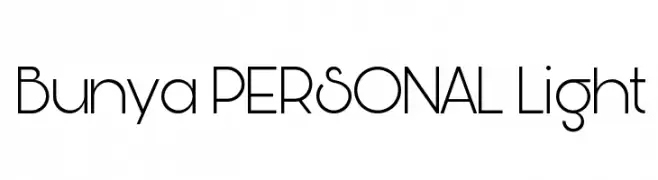
A bold, brush-style font with a hand-painted, textured appearance.
A bold, flowing script font with connected characters and dynamic style.
An elegant script font with fluid, interconnected strokes and graceful curves.
An ornate and decorative font with intricate swirls and flourishes.
A graceful and elegant script font with fluid, cursive strokes.
A festive, decorative font with cursive uppercase and bold script lowercase, perfect for holiday themes.
A festive script font with snowflake accents and holiday-themed symbols.
A sleek, italic serif font with medium weight and normal spacing.
A bold serif font with high contrast and modern elegance.
A bold, modern serif font with strong, angular serifs and consistent stroke widths.
A sleek, modern, and italicized font with a light weight and elegant style.
A modern, geometric font with elegant curves and balanced spacing.
A bold and italicized font with dynamic, slanted letterforms.
A bold, cursive font with a dynamic and elegant style.
A bold, cursive script font with a playful and energetic style.
A bold, playful handwritten font with fluid, brush-like strokes.
A bold, playful font with a cartoonish, bubble-like style.
A playful, bubble-like font with rounded, consistent outlines.
A bold, modern font with elongated, narrow characters and a uniform appearance.
A modern, condensed font with high contrast and elongated letterforms.
A modern, elongated font with sleek, narrow characters.
A bold, condensed font with tight spacing and a modern style.
An ultra-light, extra-expanded font with a sleek, modern design.
A modern, extra-expanded sans-serif font with a clean and bold appearance.
A bold, condensed, and italic font with a strong, modern style.
A thin, italicized font with a modern and elegant design.
A modern, clean sans-serif font with uniform strokes and excellent readability.
A modern, expanded, thin italic font with sleek, elongated letterforms.
An ultra-thin, extra-expanded font with a modern, geometric style.
( Måns Grebäck - www.mansgreback.com )
A sleek, modern, and slightly italicized font with a clean, minimalist design.
( Måns Grebäck - www.mansgreback.com )
A bold, extra-expanded font with modern, clean lines and wide letterforms.
( Måns Grebäck - www.mansgreback.com )
A modern, light, sans-serif font with clean lines and balanced spacing.
( Måns Grebäck - www.mansgreback.com )
A modern, expanded-width font with thin, geometric strokes.